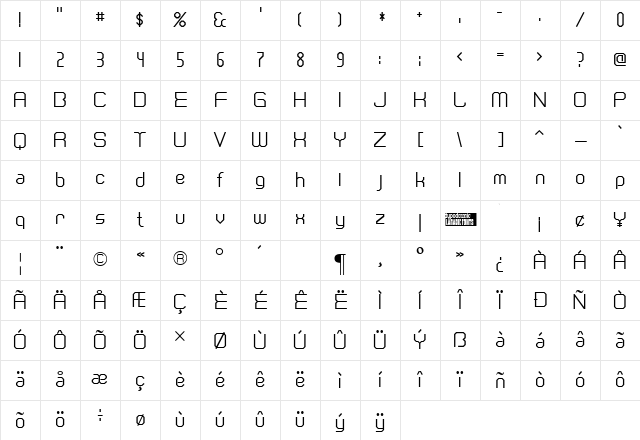
Cranberry Gin Regular
Design Context for Cranberry Gin
Cranberry Gin is a composed and adaptable typeface that performs quietly and consistently across a wide range of design contexts.